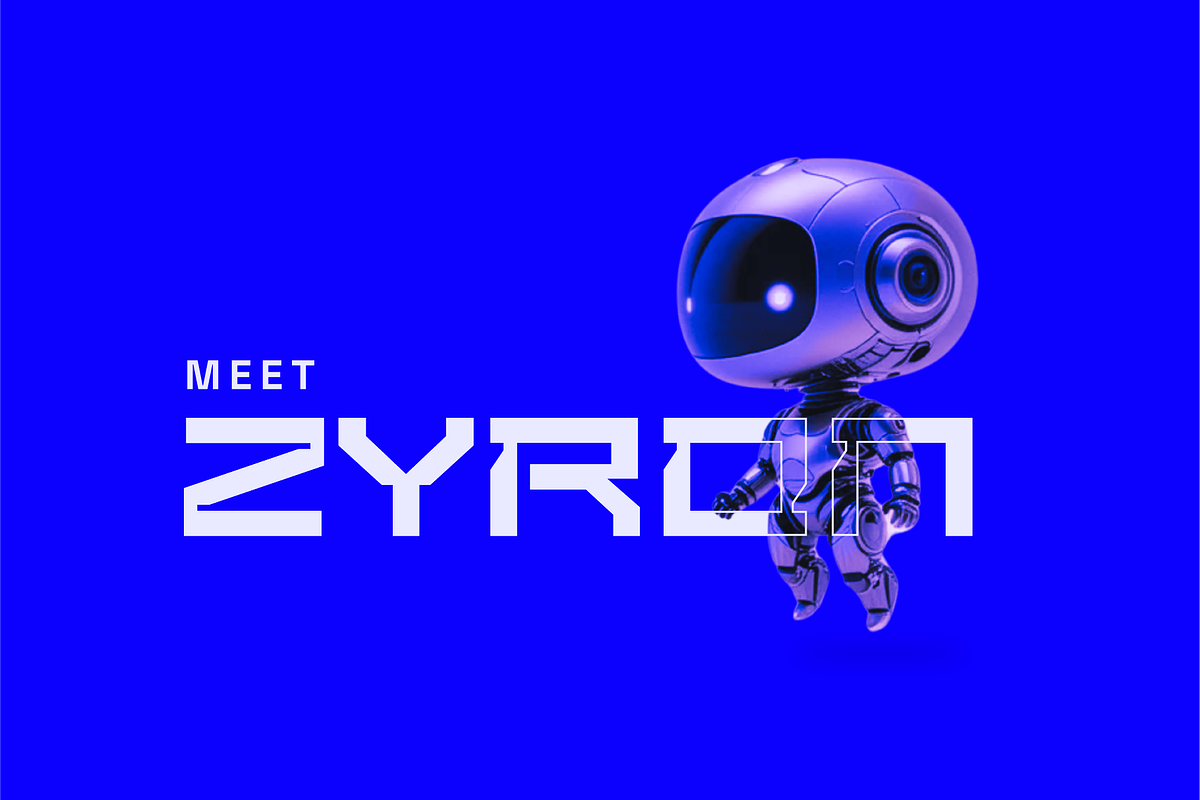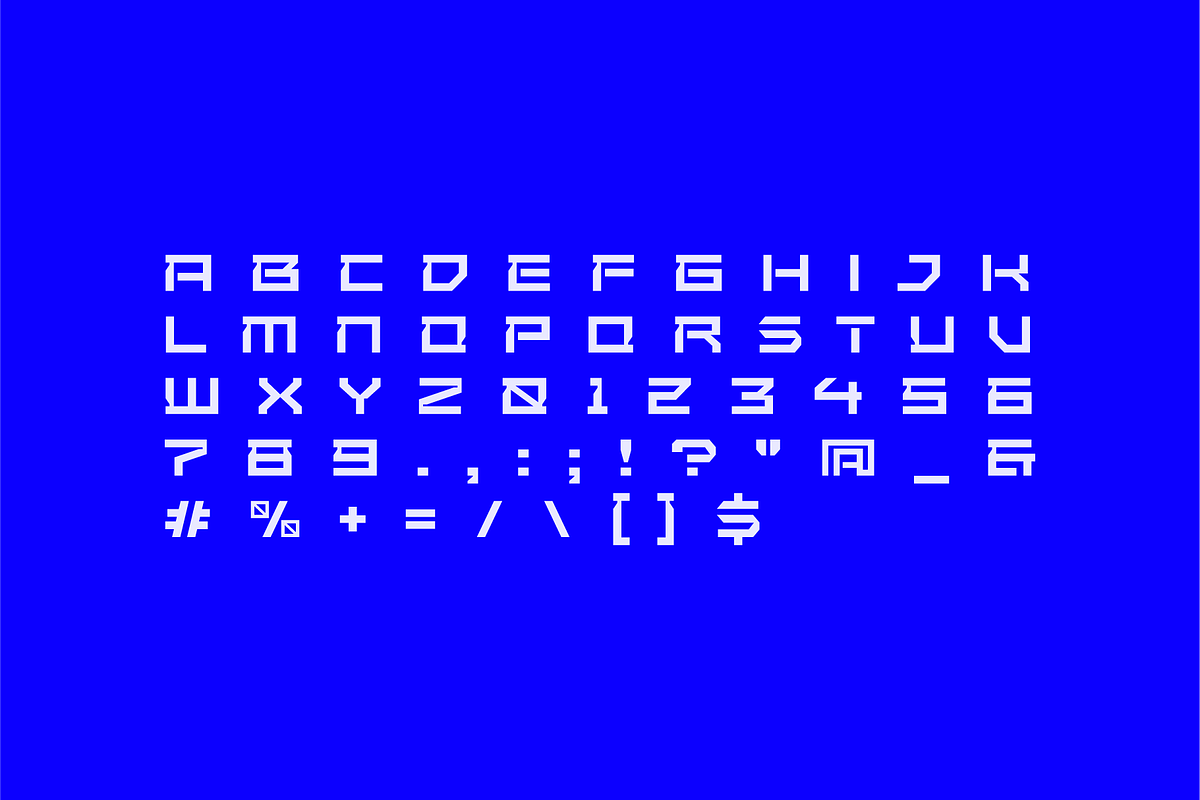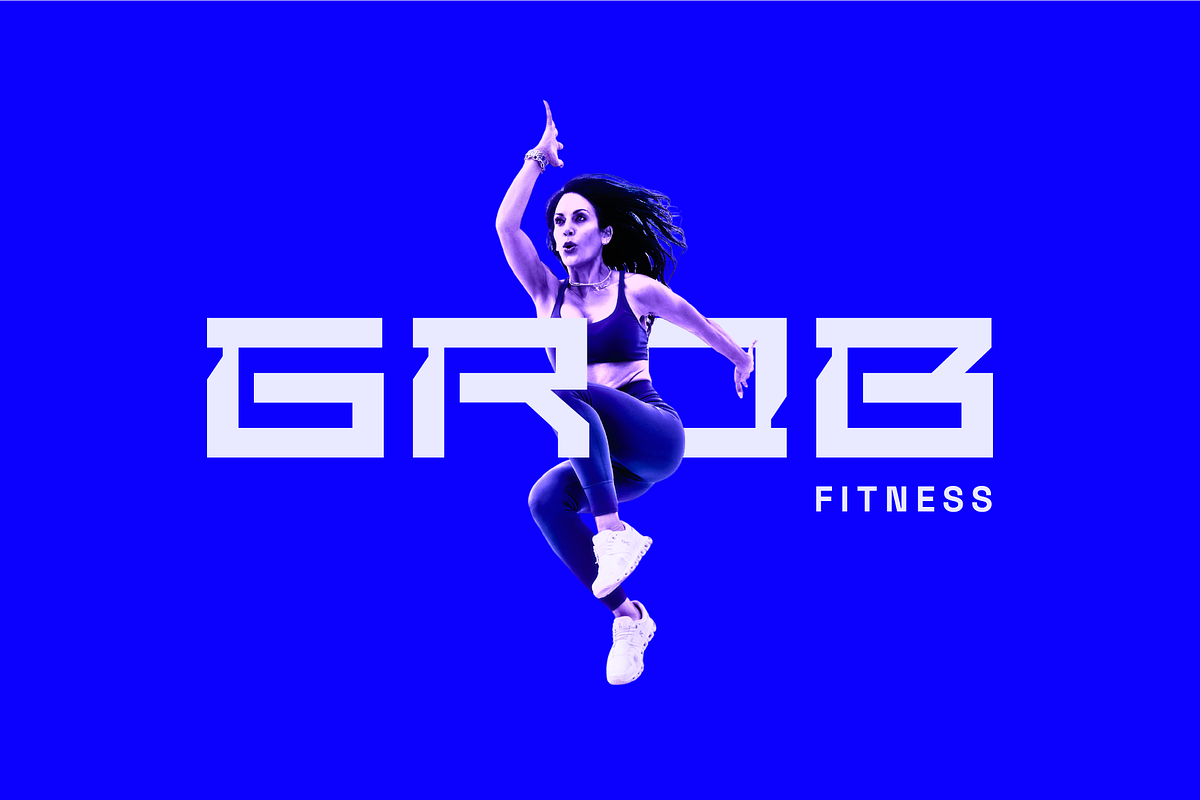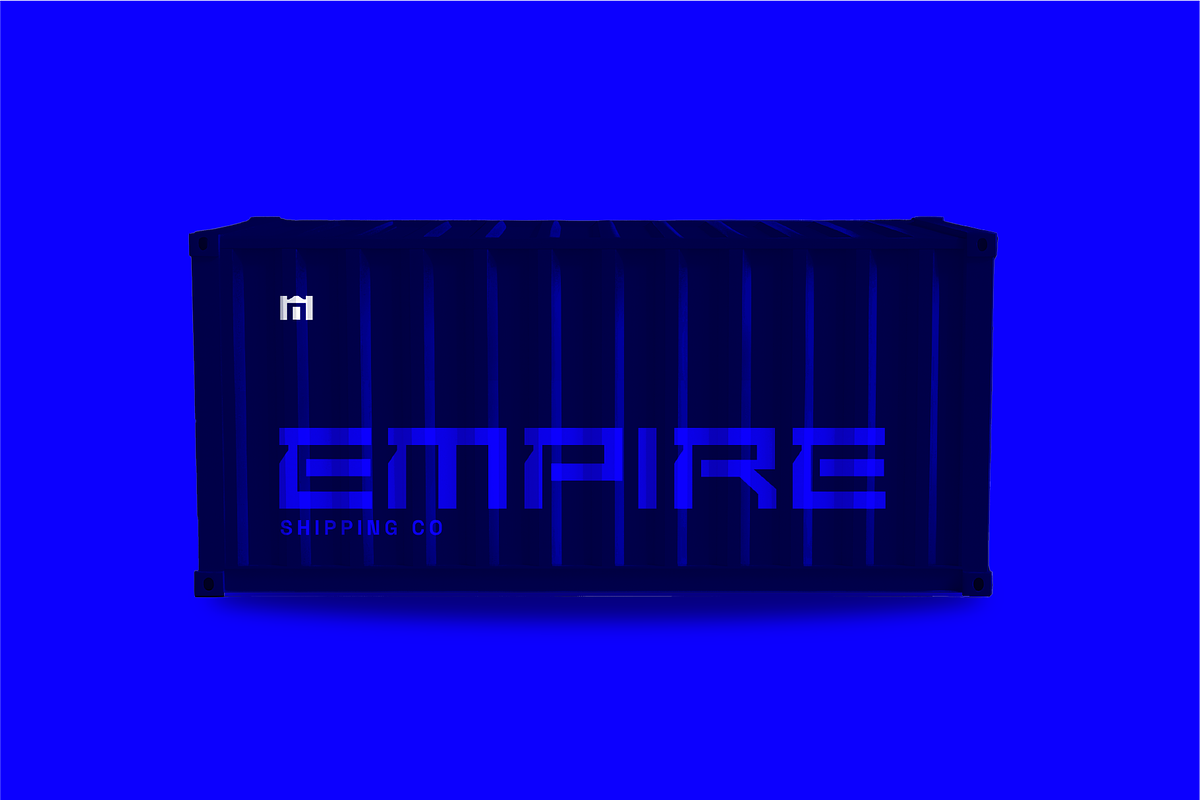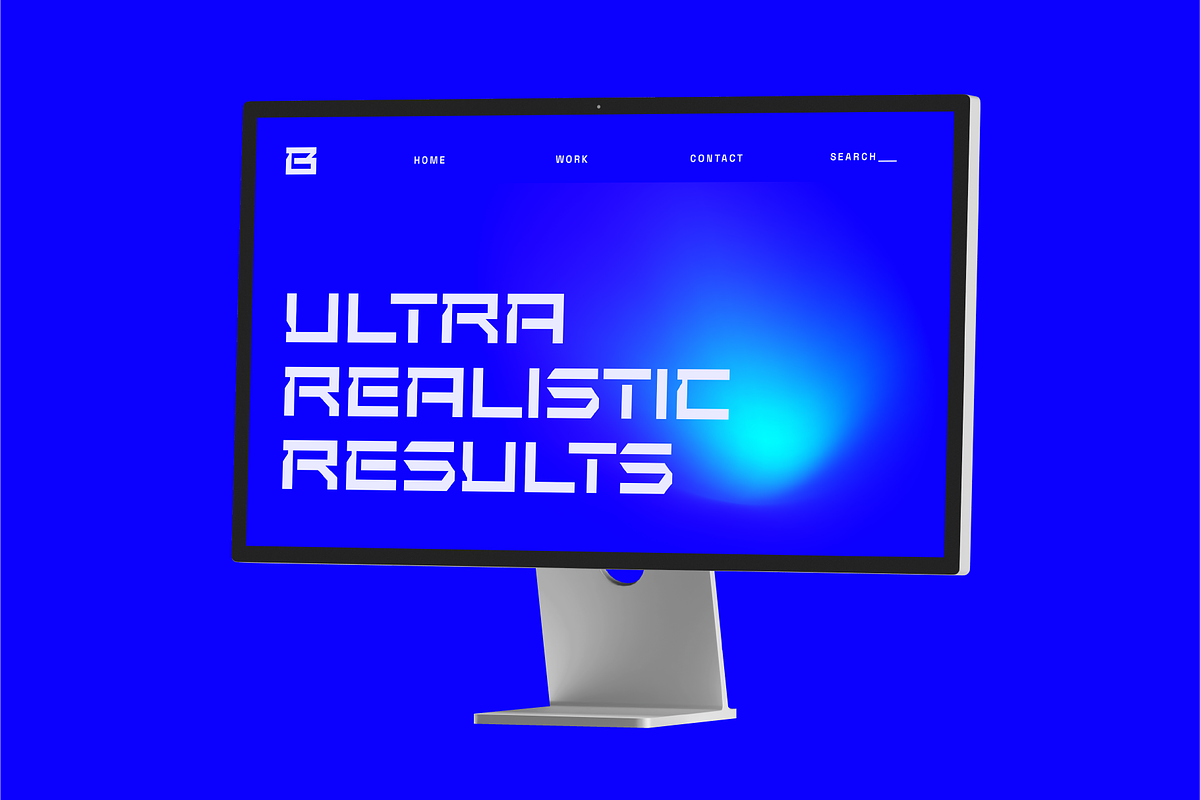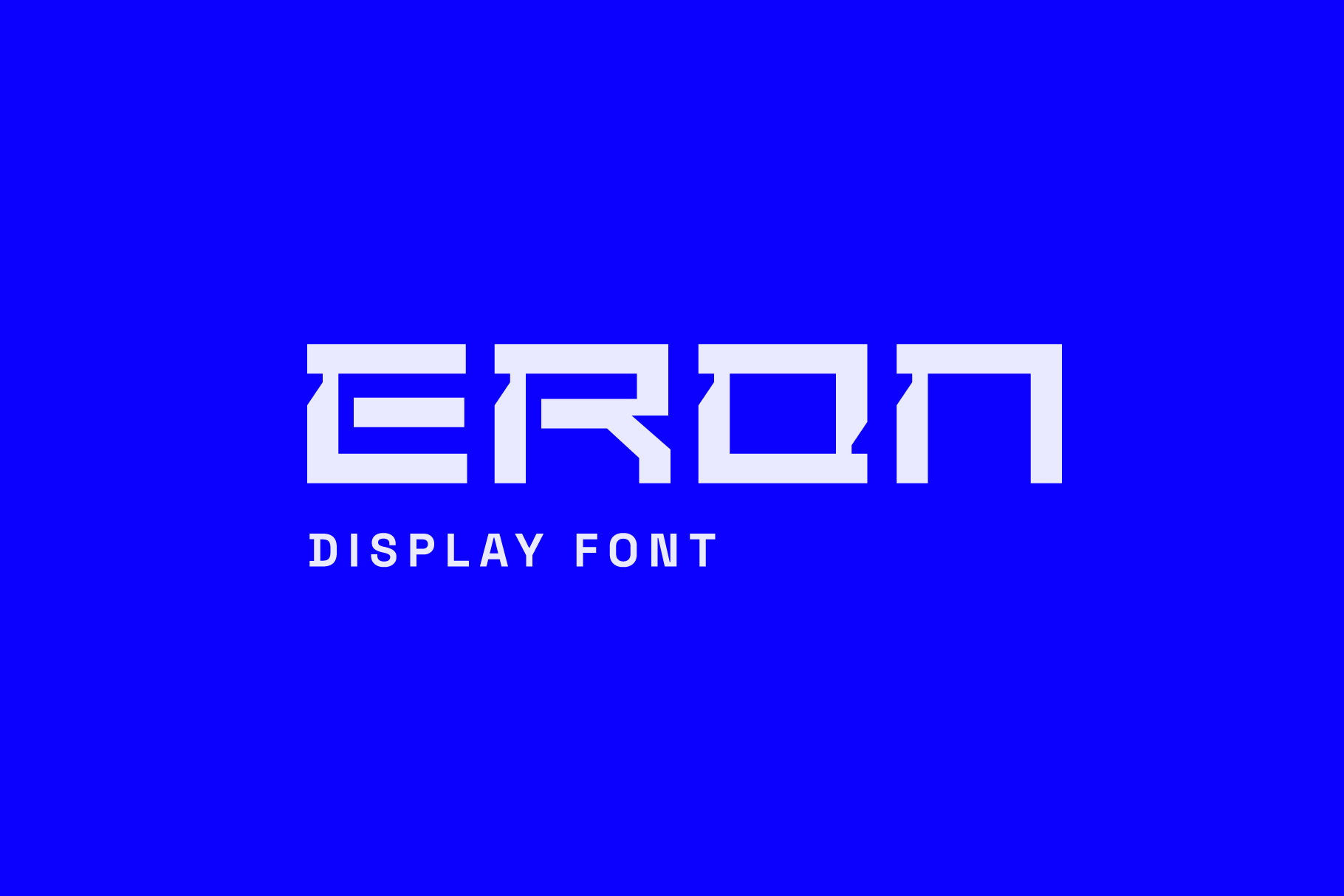
Eron-Futuristic Tech Display Font
Eron is a strong, futuristic display font that blends angular precision with sleek minimalism, ideal for brands and interfaces that want to convey innovation, power, and forward motion. This techy font features sharp geometric cuts, consistent stroke widths, and compact letter spacing, giving it a high-tech, engineered aesthetic suitable for logos, branding, UI headlines, gaming titles, and sci-fi visuals.